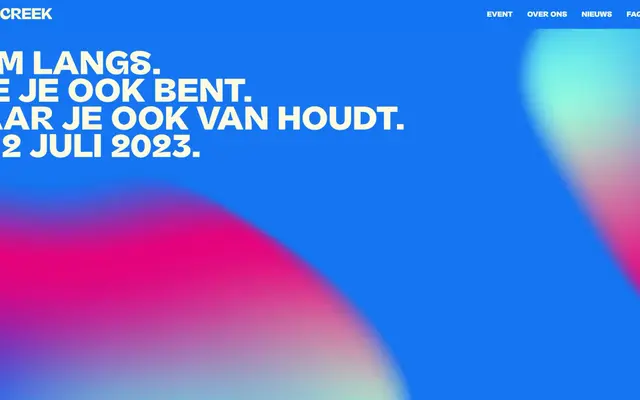
A variable grotesque from Pizza Typefaces with axes for weight, italic and inktrap depth, plus a suite of alternate letterforms accessible via OpenType features.
The family ships as a variable font with at least four axes: weight, italic, inktrap and a randomise function for alternate glyphs. Alternate forms cover a range of characters including A, E, F, S, R and several lowercase letters, giving designers a degree of expressive control within a single file. Two named instances — Standard and Light — anchor the weight range, each with a corresponding italic.
The variable axes — weight, italic, inktrap, and alternates — point to a contemporary grotesque with display ambitions. The inktrap axis and alternate letterforms suggest a modern take on the grotesque genre with expressive optical features.